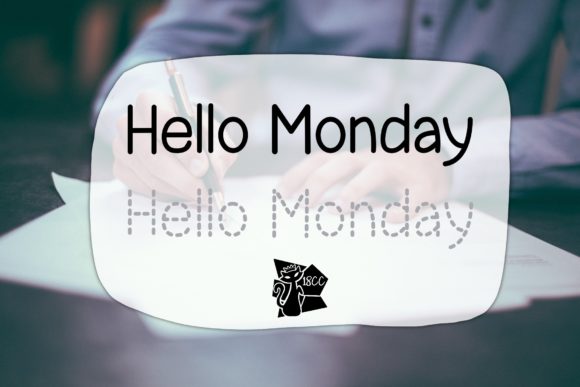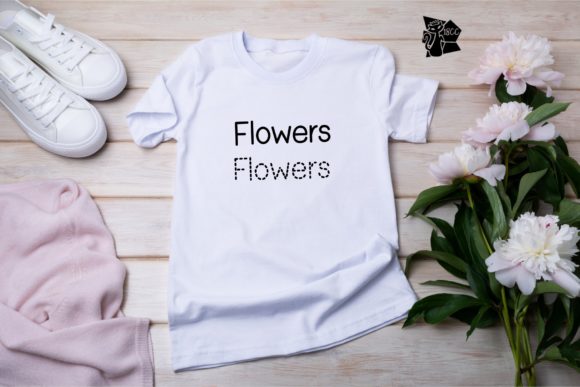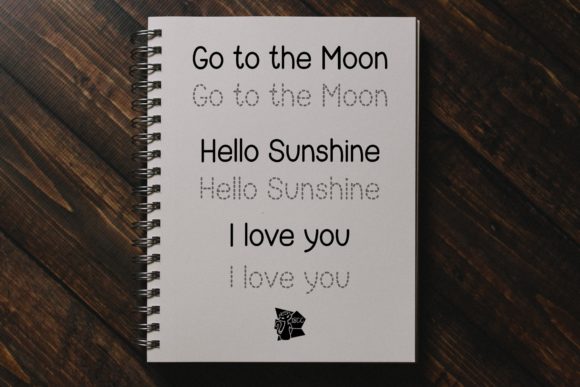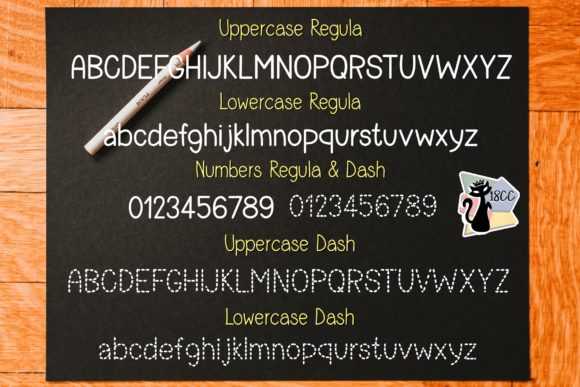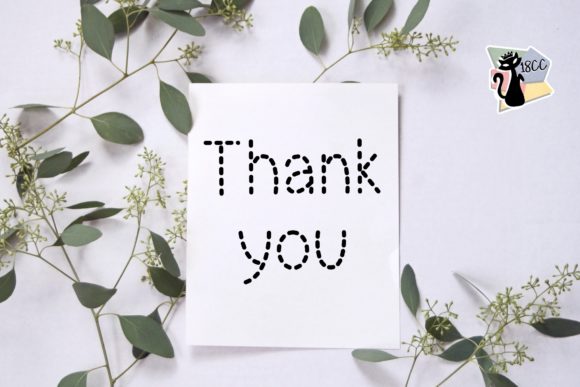
Introduction to Mini Practice Font
Have you ever found yourself doodling in the margins of a notebook or sketching out ideas in the early hours of the morning? For many creatives, these quiet moments of expression are a vital part of the design process. And for those who love to craft and create, the right tools can make all the difference. Enter the Mini Practice Font, a charming handwritten monoline font designed specifically for practice and DIY projects.
This delightful font is more than just a pretty face – it’s a valuable resource for designers looking to add a touch of personality to their work. With its clean and cute aesthetic, the Mini Practice Font is perfect for crafting invitations, product packaging, and quotes that stand out from the crowd. And the best part? It’s available for free download, making it an instant addition to any design arsenal.
Key Features of Mini Practice Font
- High-quality design for creative projects, ideal for use in digital art, graphic design, and more.
- Perfect for use in a variety of contexts, from personal projects to commercial designs, due to its versatile and modern design aesthetic.
Honest Review: Mini Practice Font
I recently stumbled upon the Mini Practice Font while searching for a high-quality font to use in my creative project. I was excited to give it a try, and here’s my honest review.
The font’s clean and minimalist design makes it perfect for creative projects that require a touch of sophistication. I’ve used it for various purposes, from branding to graphic design, and it always delivers.
Limitations: ⚠️ While the font is high quality, it may not be suitable for projects that require a lot of bold or dramatic typography. Additionally, some users may find the font a bit too simple or plain.
- Perfect for digital and print projects
- Simple and minimalist design
Common Use Cases for Mini Practice Font
The Mini Practice Font is ideal for a wide range of projects, including social media graphics, presentations, logos, and infographics. Its high-quality design and transparent background make it a versatile resource for designers of all levels.